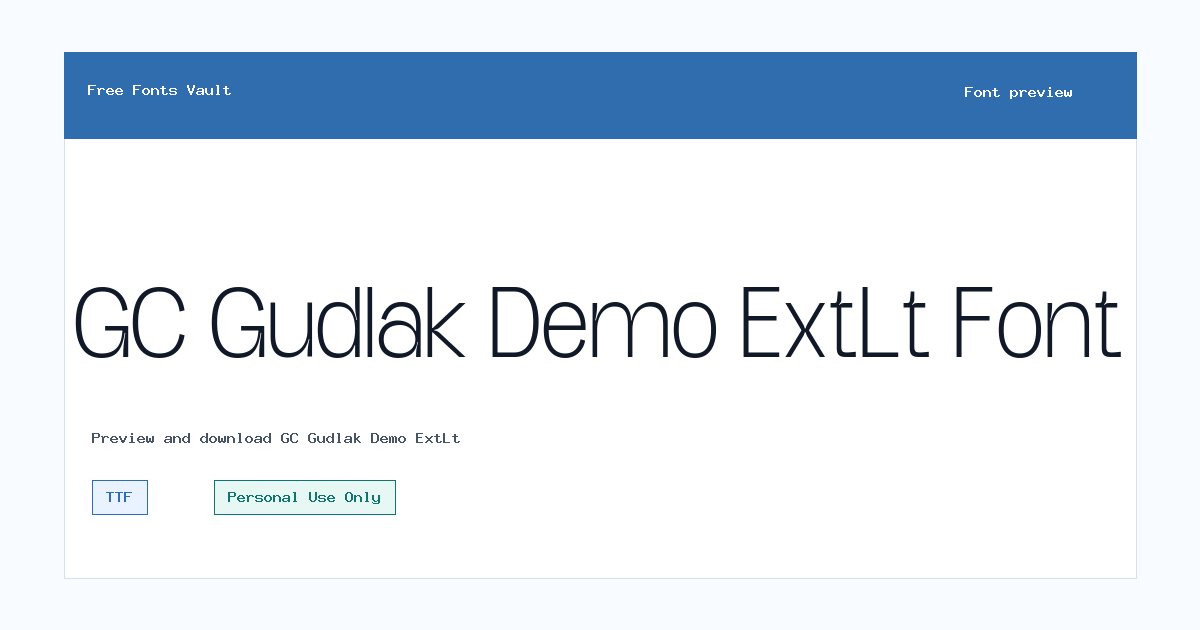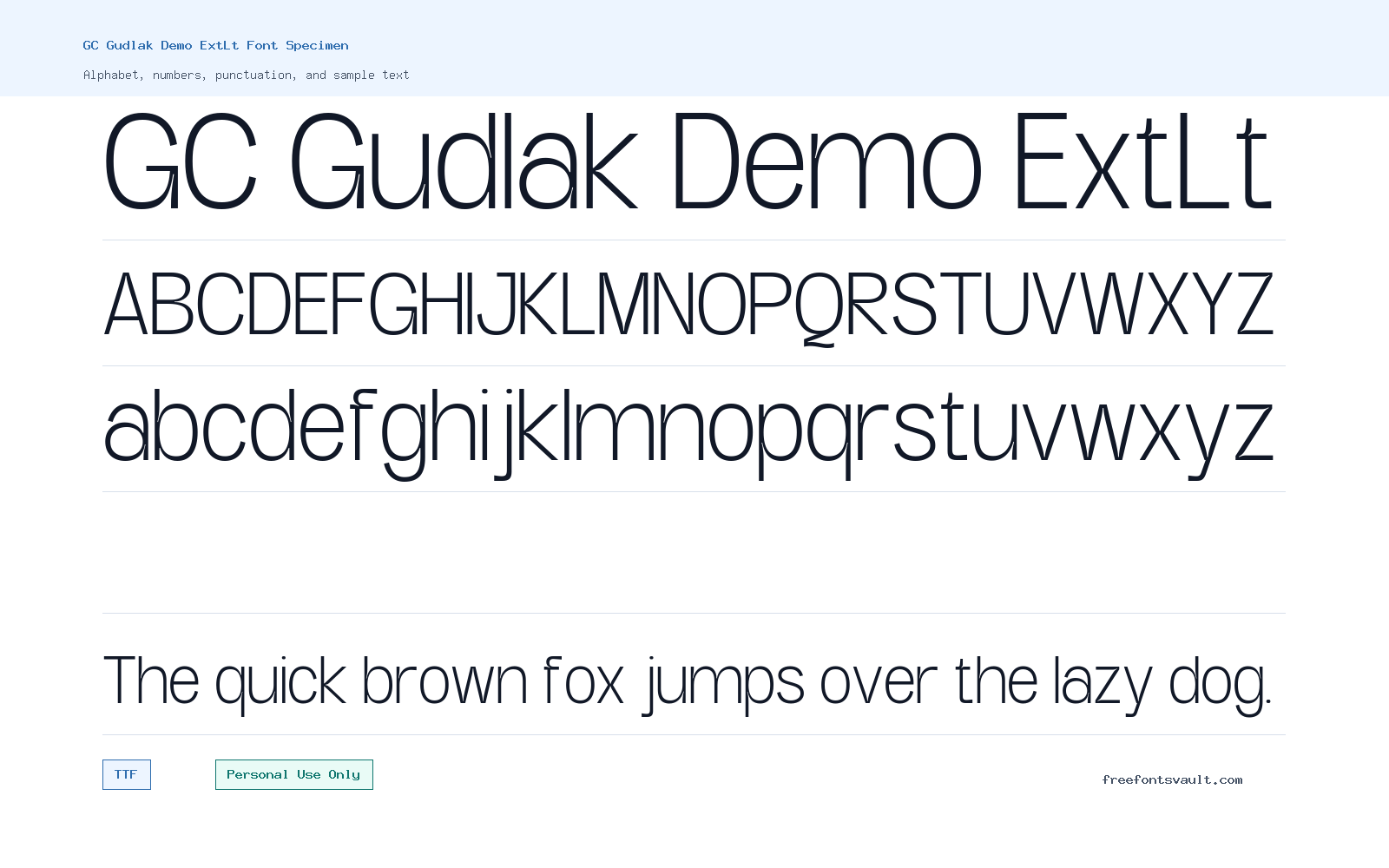
GC Gudlak Demo ExtLt
- Designer Hanif Dwi Sulistyo of Glyphonic
GC Gudlak Demo ExtLt font.
GC Gudlak Demo ExtLt is a light-weight demo font from the GC Gudlak family, shared as a TTF file for personal-use projects. Its clean sans serif structure makes it useful for testing simple headings, labels, and short display text before deciding whether it fits your design.
About GC Gudlak Demo ExtLt
GC Gudlak Demo ExtLt has a thin, quiet look that works best when the text has enough space around it. Because this is an ExtraLight-style cut, it is better suited to large type than dense paragraphs. Try it for minimal title treatments, soft branding mockups, poster drafts, portfolio headers, or social graphics where the type should feel clean without looking heavy.
Before downloading, use the preview tool to test the exact words you plan to use. Thin fonts can look elegant at larger sizes but may lose clarity when used too small, on busy images, or with low-contrast colors. If your layout needs body copy, navigation text, or small captions, compare it with a heavier weight or a simpler companion font so the final design stays readable.
- Light sans serif demo style suited to spacious headings and short display text
- Personal design drafts, mood boards, portfolio headings, and social media mockups
- Minimal posters, title layouts, presentation covers, and clean text previews
GC Gudlak Demo ExtLt is credited to Hanif Dwi Sulistyo of Glyphonic.
For the best result, preview the font at the size you will actually use. Keep plenty of contrast between the text and background, avoid long paragraphs, and check thin strokes on both desktop and mobile screens. Pair it with a more readable text face if your design includes descriptions, menus, or small supporting copy.
Is this good for body text?
It is better for larger display use than long reading text. The light weight can become hard to read at small sizes, especially on textured backgrounds or low-contrast layouts.
Who designed GC Gudlak Demo ExtLt?
The font is credited to Hanif Dwi Sulistyo of Glyphonic.